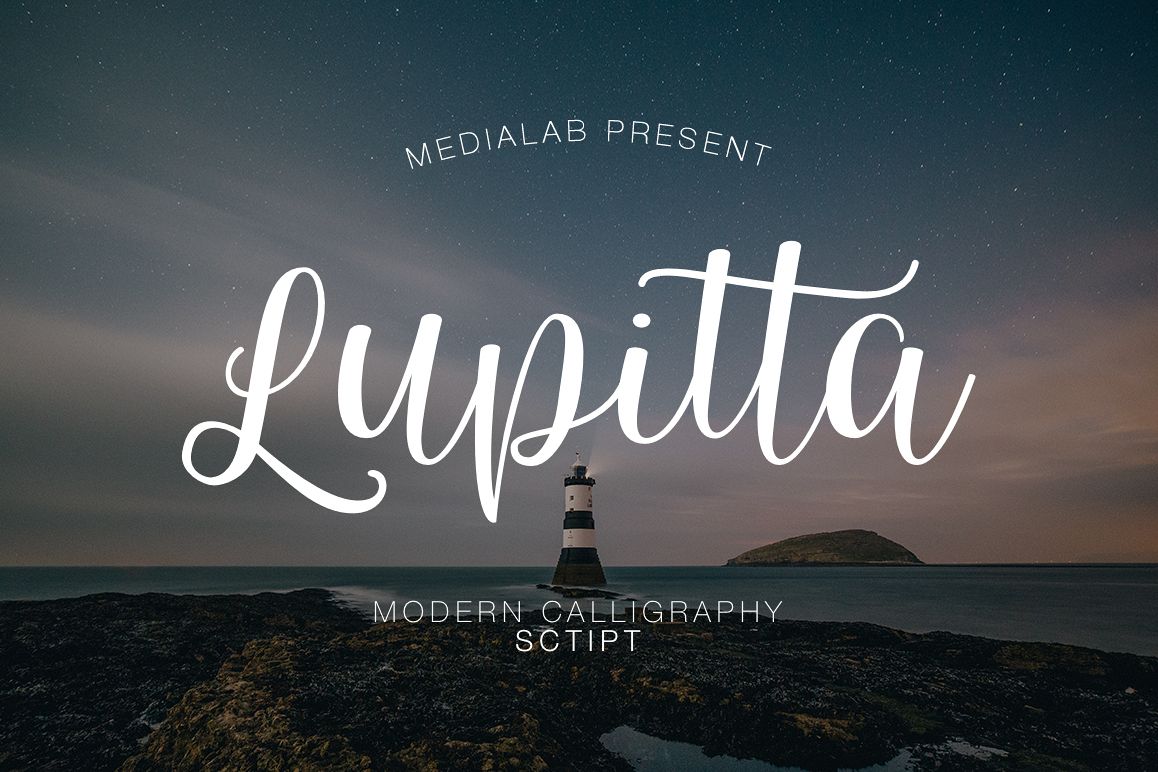
Lupitta handwritten font
Lupitta is amazing lettering font, every single letters have been carefully crafted to make your text looks beautiful.
Both these fonts complement each other. You can make compositions from fonts, it's easy and simple. With lettering script style this font will perfect for many different project ex: quotes, blog header, poster, wedding, branding, logo, fashion, apparel, letter, invitation, stationery, etc.